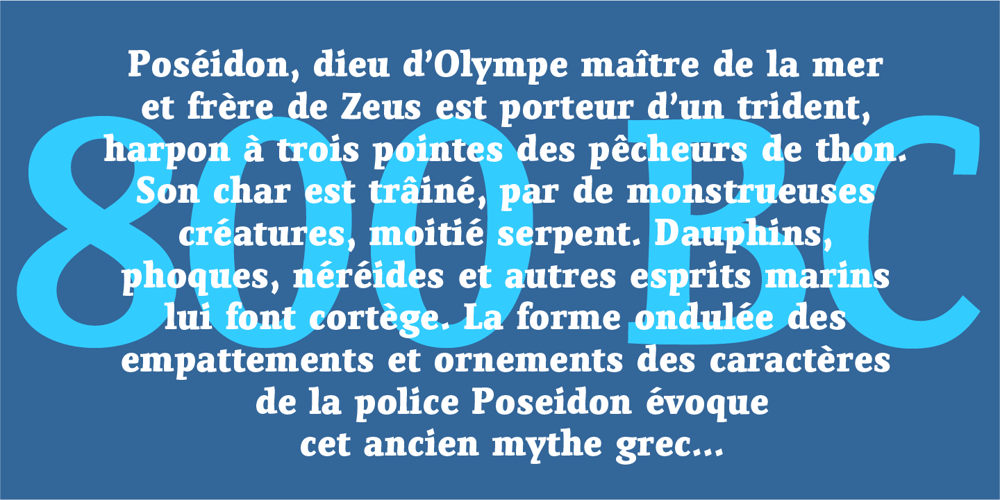
Poseidon
Poseidon font
Poseidon Font Family was designed by Adrian Williams and published by Club Type. Poseidon contains 6 styles and family package options. Ancient Olympian god of the sea, brother of Zeus; Poseidon is the bearer of a trident, the three pronged spear of tunny fishers and is drawn along by monstrous sea creatures-half horse, half serpent. Around him travels an entire retinue of dolphines, nereids, seals and different spirits of the sea. Likewise, the Poseidon font family is accompanied by the waved serifs and flourishes that enable its character to retell these ancient Greek myths.